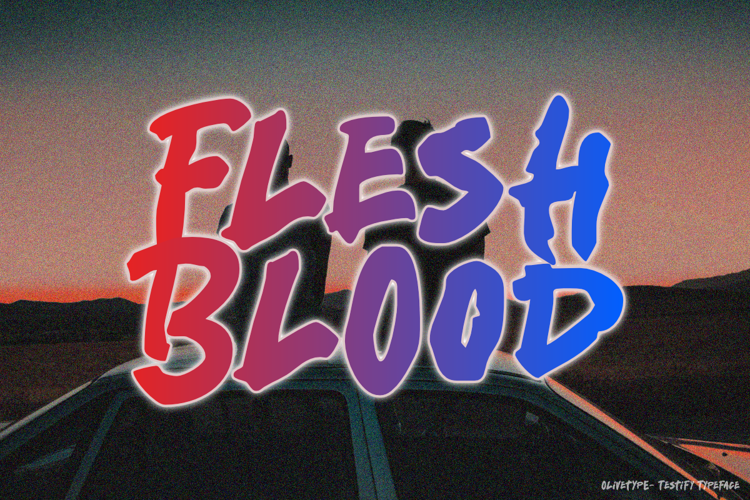
About Testify Font
Testify is a cool and fun typeface, carefully handcrafted to become a true favorite. Its old school charm makes it appear wonderfully down-to-earth, readable, and ultimately, incredibly versatile. Testify will look outstanding in any context, whether it’s being used on busy backgrounds or as a standalone headline!